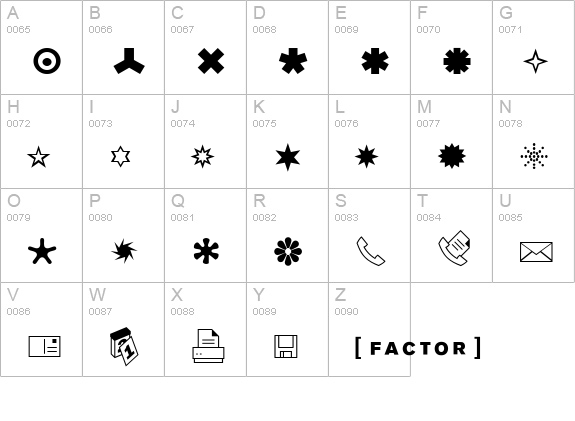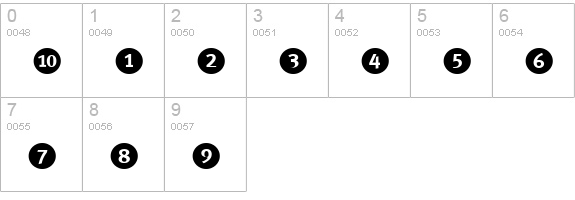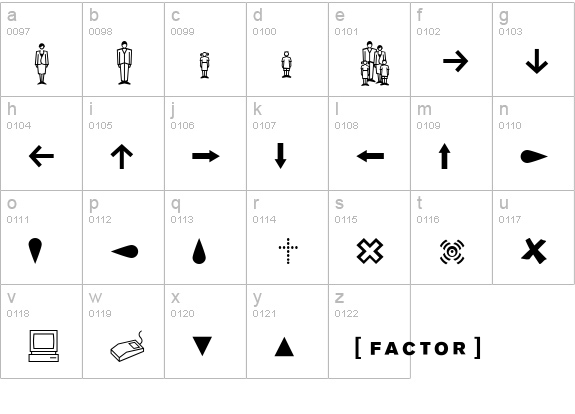
Dingbests-Regular Font Details
Dingbests-Regular is the standard, neutral variant in the Dingbests typeface family \xE2\x80\x94 well suited to general body text, paragraphs, and standard typographic work.
Dingbests-Regular font is a charming and versatile typeface that will add a touch of whimsy to your designs. With its playful and distinctive characters, Dingbests-Regular is perfect for creating eye-catching headlines, posters, and logos. This fun and engaging font will bring a unique flair to any project, making it stand out from the crowd. The best part? Dingbests-Regular is completely free to download at FontsMarket.com. That's right, you can get your hands on this delightful font without spending a penny. So why wait? Add Dingbests-Regular to your font collection today and let your creativity shine!